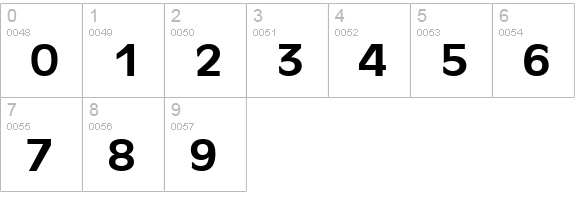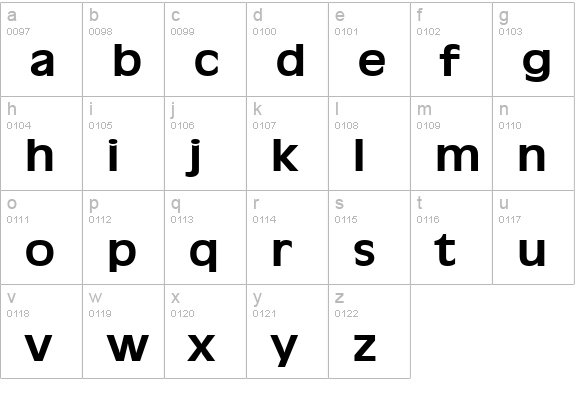
Antiqua 101 Wide Bold Font Details
Antiqua 101 Wide Bold is a strong, high-contrast, extended-width variant in the Antiqua typeface family \xE2\x80\x94 well suited to headlines, attention-grabbing titles, and strong calls-to-action.
Antiqua 101 Wide Bold font is a timeless and elegant typeface that exudes sophistication and authority. Its bold and wide design commands attention and adds a touch of modernity to any design project. Ideal for headlines, posters, and branding materials, this font is versatile and easily adaptable to various creative purposes. The clean lines and classic proportions of Antiqua 101 Wide Bold font make it a versatile choice for both print and digital designs. Its bold weight ensures readability and impact, making it perfect for making a statement. Whether used for editorial layouts, product packaging, or website headers, this font is sure to elevate the overall aesthetic of any project. Best of all, Antiqua 101 Wide Bold font is available for free download at FontsMarket.com. This means that you can add this stylish and sophisticated font to your collection without any cost. Don't miss out on this opportunity to enhance your design projects with the timeless appeal of Antiqua 101 Wide Bold font. Download it today and unleash your creativity!